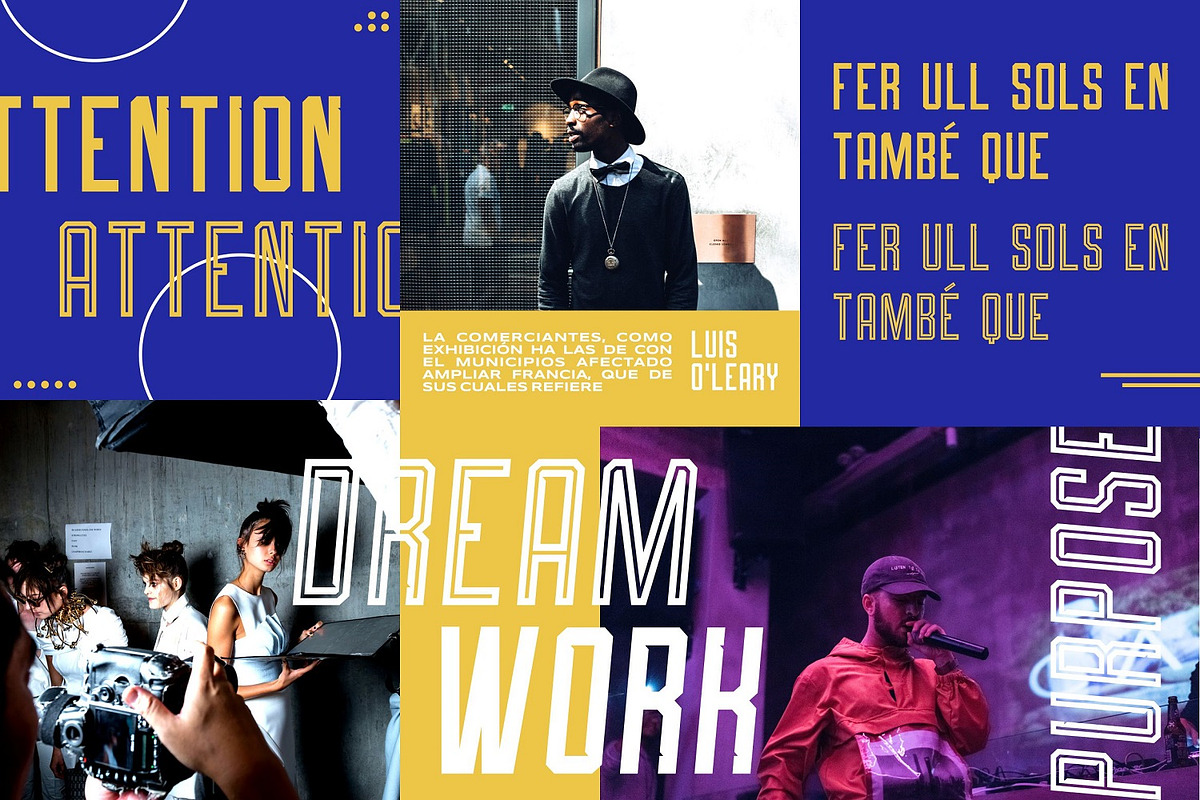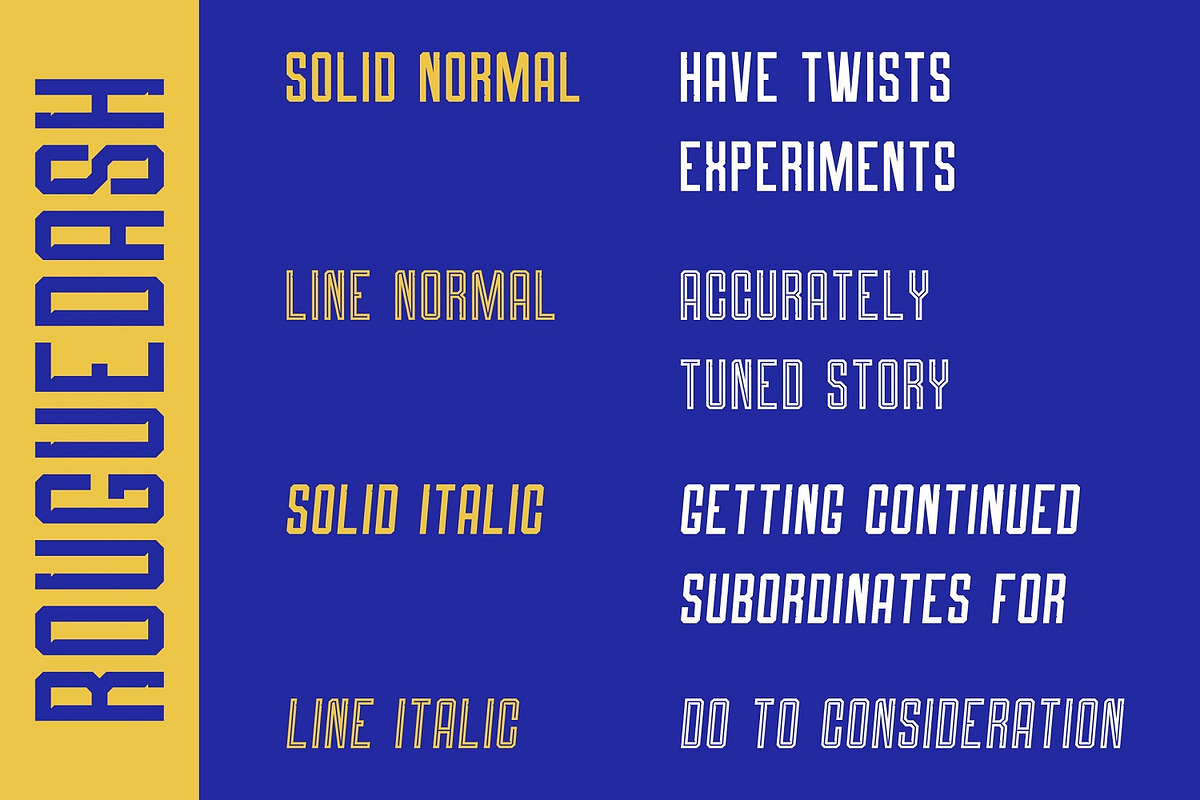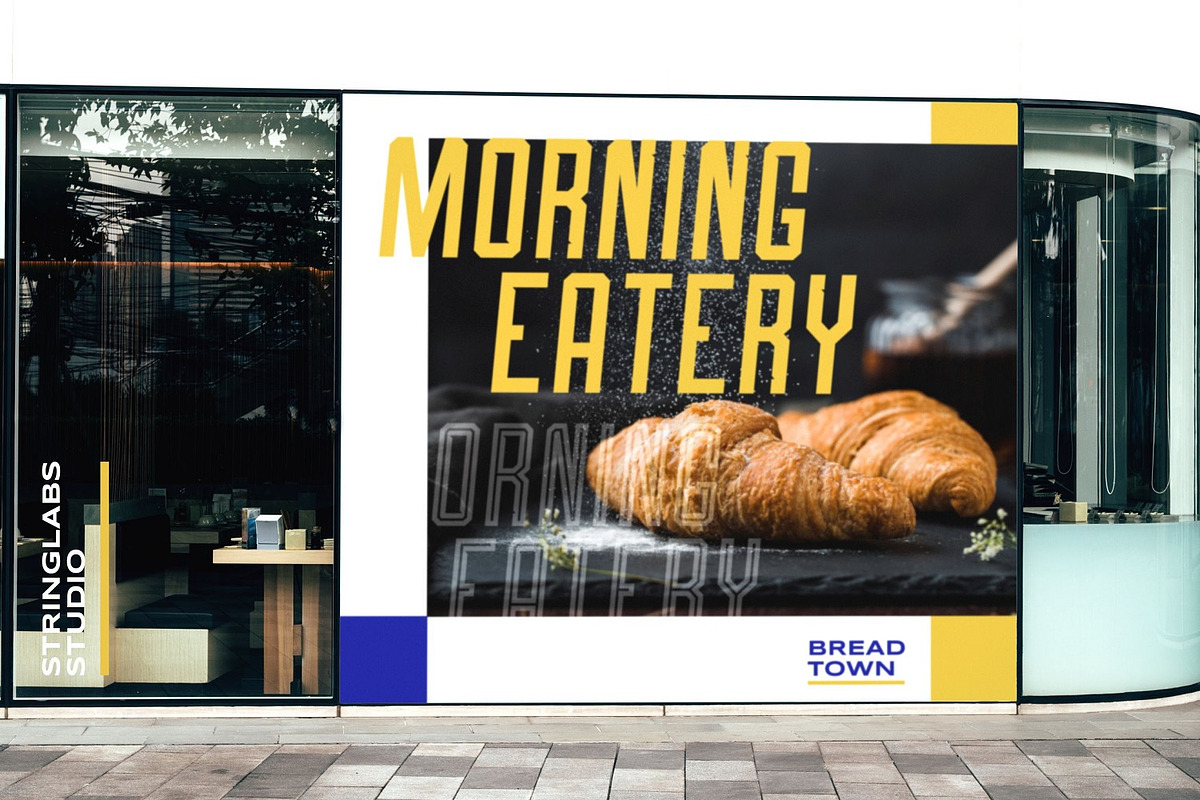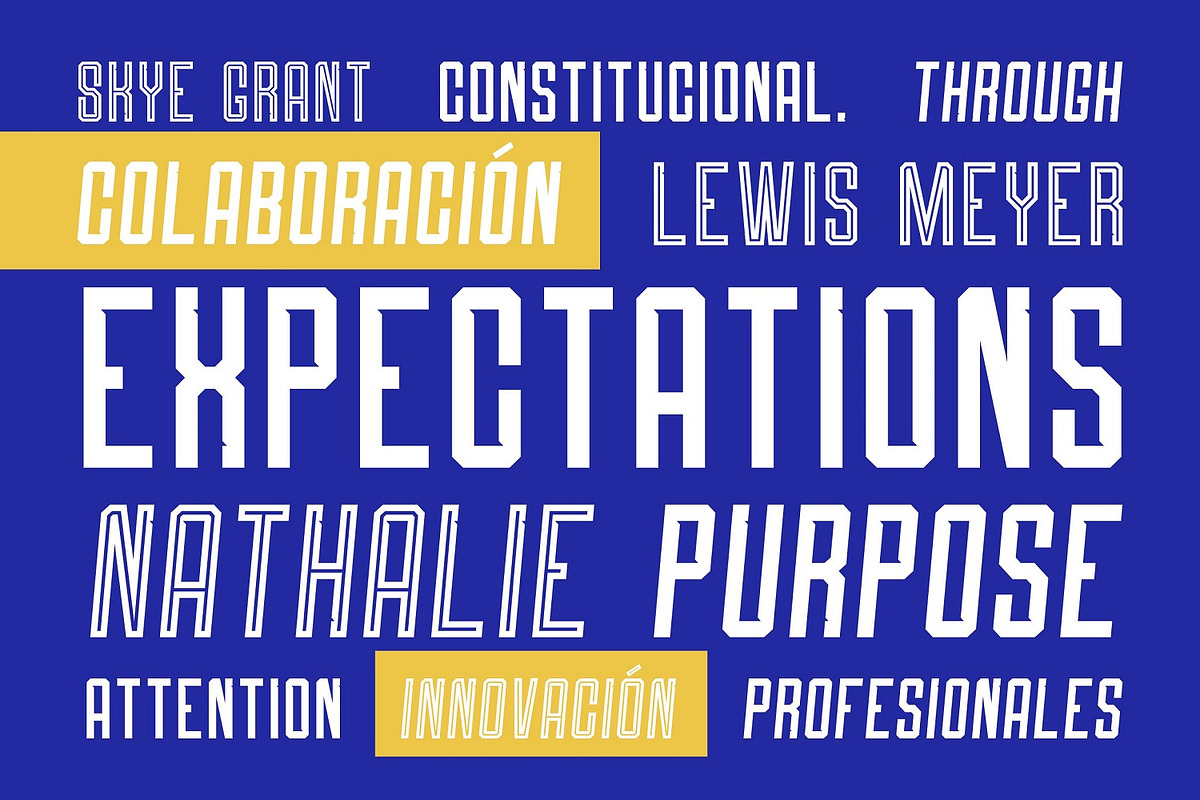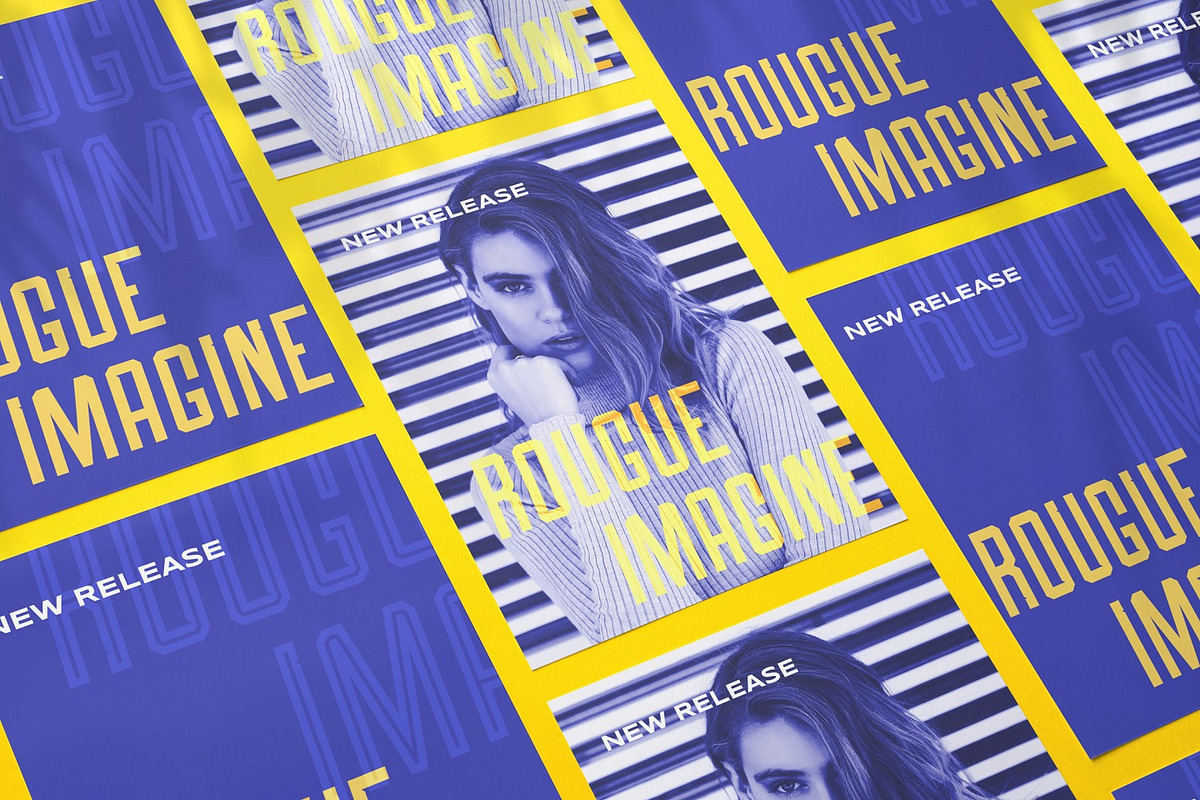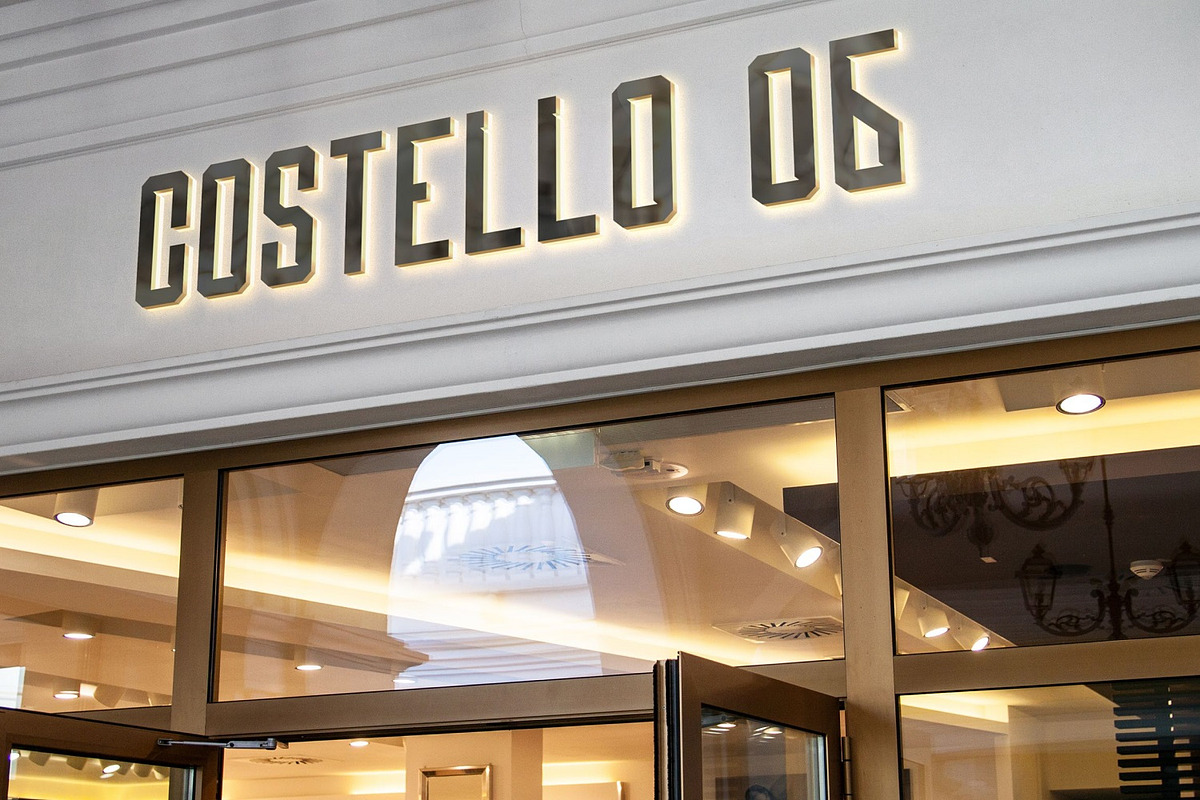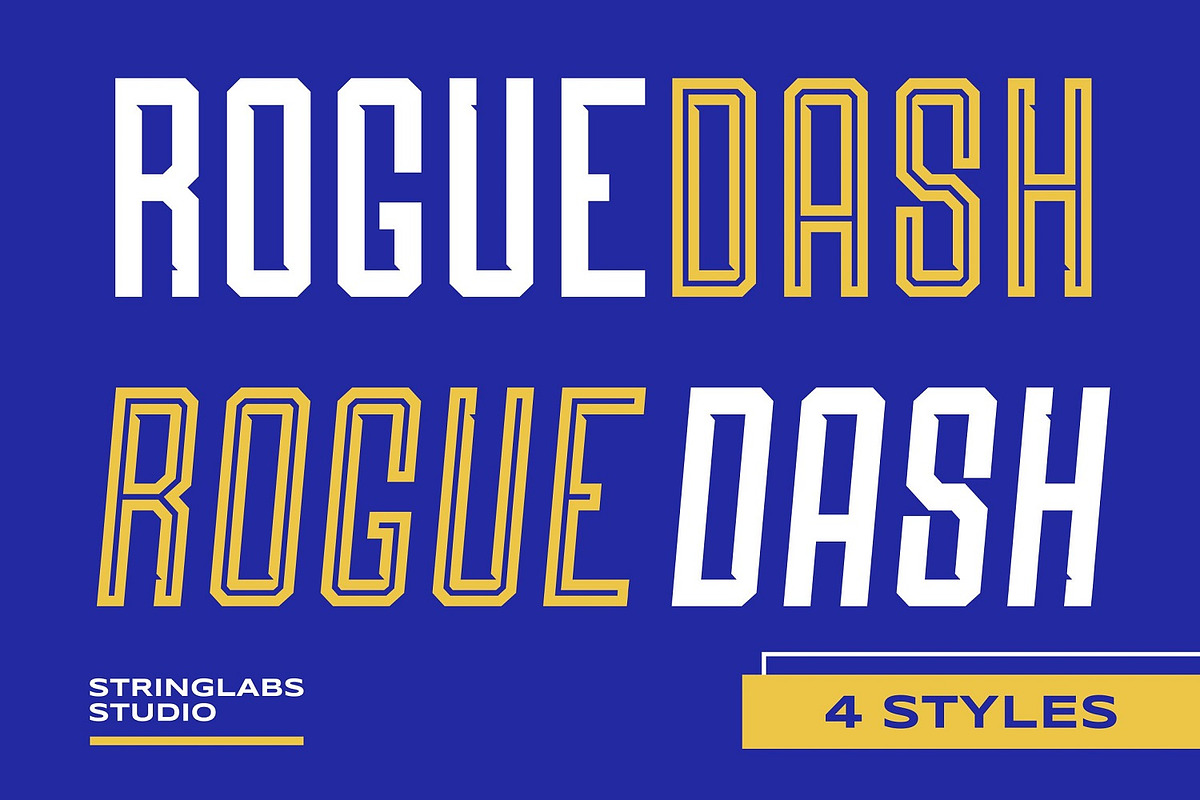
Roguedash - Stylish Sans Font Family
Introducing Roguedash - Stylish Sans Font Family
Roguedash is a stylish sans serif font family. This font is perfect for anyone who like strong style. Also, this font has Sporty, trendy, Futuristic, Modern, Elegant, Creative, and Unique Concept.
Roguedash Solid (Regular)
Rogudash Solid (Italic)
Roguedash Line (Regular)
Roguedash Line (Italic)